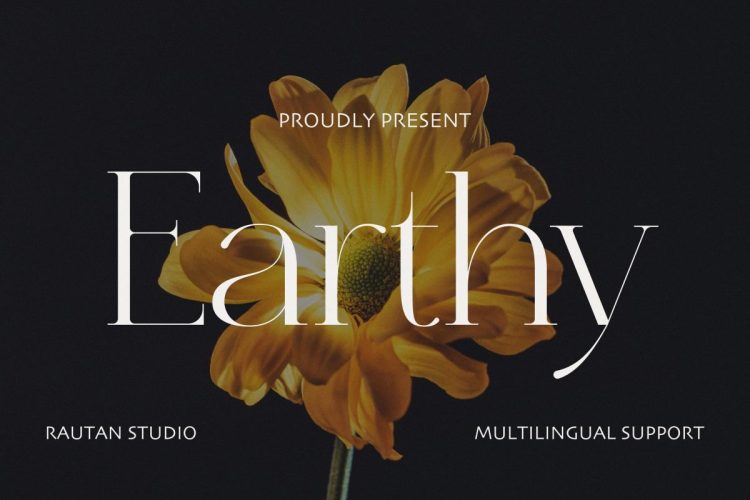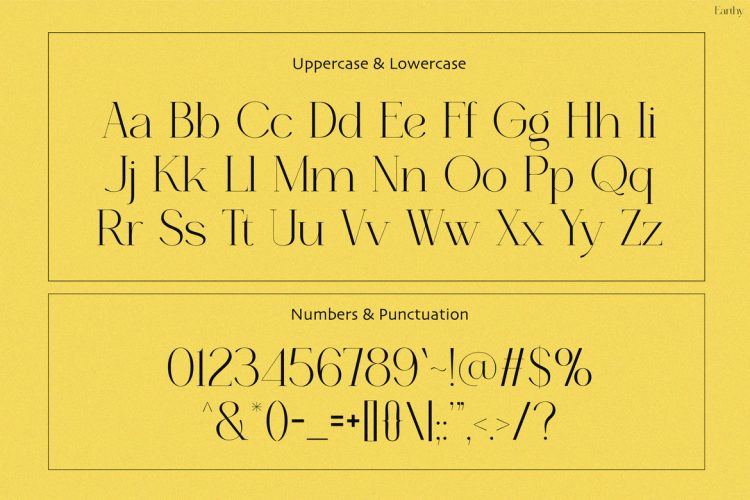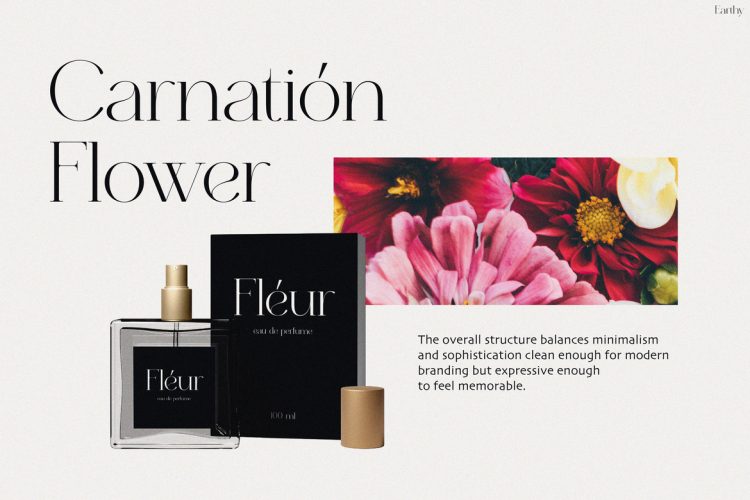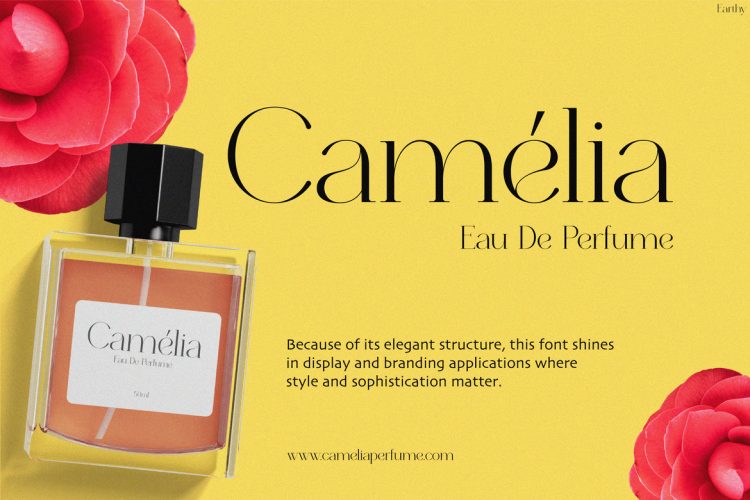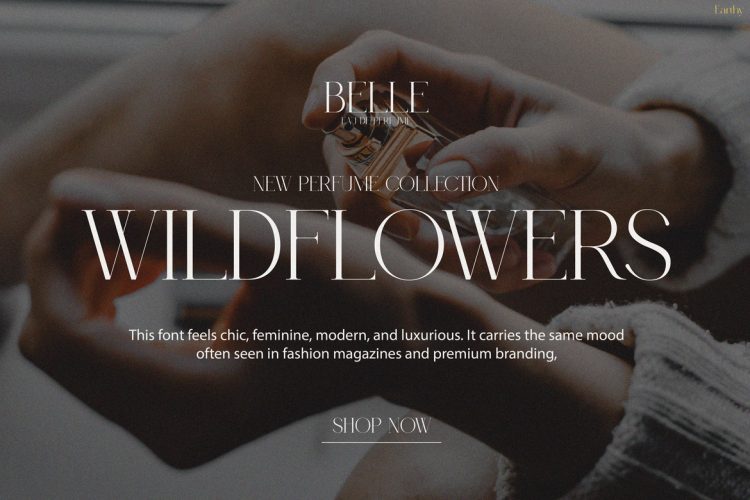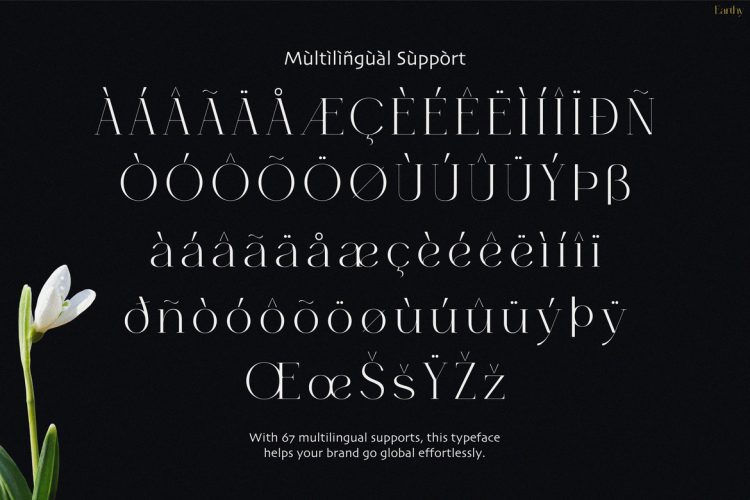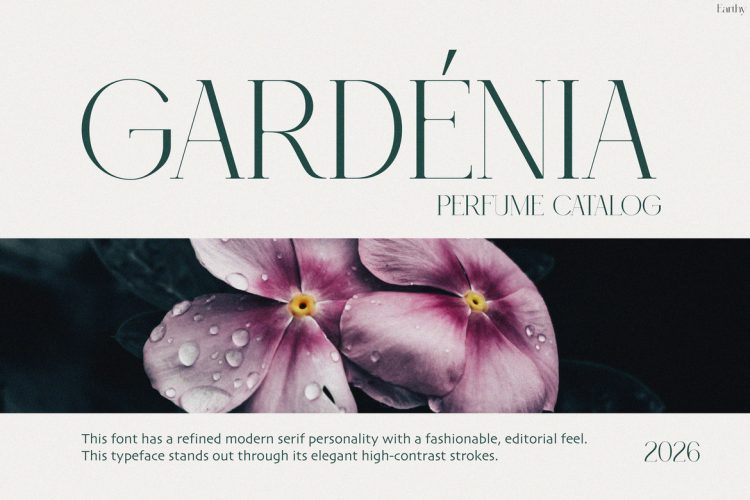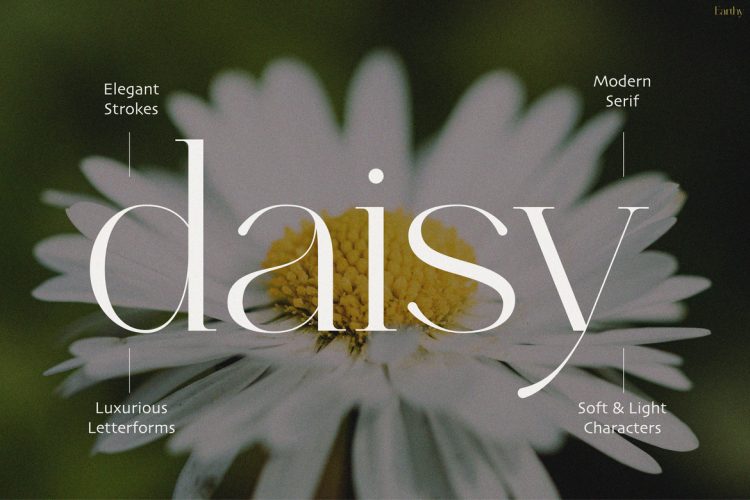
EARTHY โ Elegant Serif Font Inspired by Nature
Instagram Font Earthy brings a graceful serif style inspired by the beauty and softness of nature. Its refined letterforms and smooth curves instantly create a calm and artistic visual impression. Moreover, the elegant contrast between thick and thin strokes adds character and depth to every word. As a result, headlines feel more expressive and visually captivating. At the same time, the structure remains balanced and readable, which makes the font highly functional for many design purposes. In addition, its natural aesthetic helps designs feel warm, refined, and visually memorable. With support for 67 languages, Earthy allows creators to communicate beautifully with audiences around the world.
Earthy is a modern serif display font designed to bring elegance and artistic charm to creative projects. First of all, the refined letterforms create a sophisticated typographic personality. Furthermore, the soft curves and balanced proportions make the font comfortable to read even in larger headlines. Because of this harmony, designers can create layouts that feel both stylish and professional. In addition, Earthy adapts easily to different visual styles. For example, it works beautifully in editorial layouts, product packaging, branding visuals, and promotional materials. As a result, the font helps designs appear polished, thoughtful, and visually appealing.
Earthy is perfect for designers and brands that want to build a refined visual identity. For instance, it works wonderfully for beauty products, perfume packaging, skincare labels, and lifestyle branding. Moreover, it fits perfectly in floral themes, magazine titles, and artistic advertising. Likewise, wedding invitations and boutique branding benefit from its graceful and expressive letterforms. Because of its elegant structure, the font allows brands to communicate creativity and sophistication while keeping their message clear.
Instagram Font Earthy turns simple text into elegant visual storytelling. Therefore, if you want typography that feels artistic, refined, and timeless, Earthy is the perfect choice for your next design project.